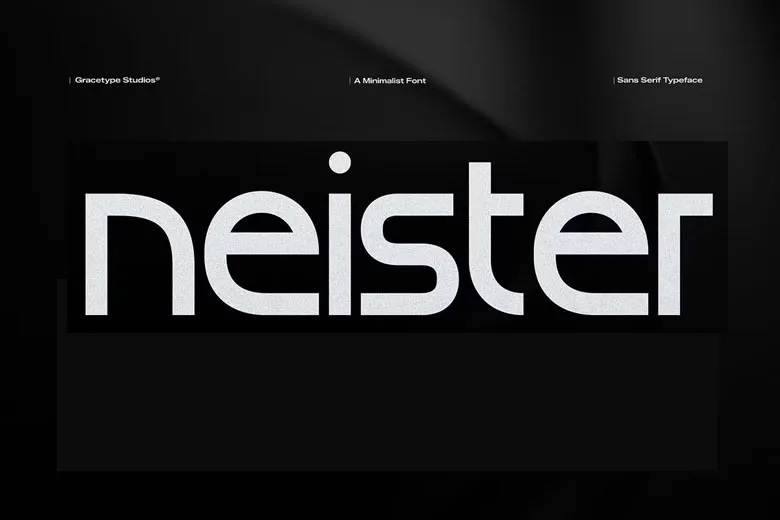
Neister Font
Neister is a minimalist sans-serif typeface with a sleek, architectural feel. Its wide, geometric letters have clean lines and balanced shapes, giving it a clear and premium look. The medium-heavy weight and steady, low-contrast style add to its modern appeal.
Neister works well for tech startup branding, architectural firm identities, luxury car marketing, and bold, modern social media headers.
Neister Sans Serif Font